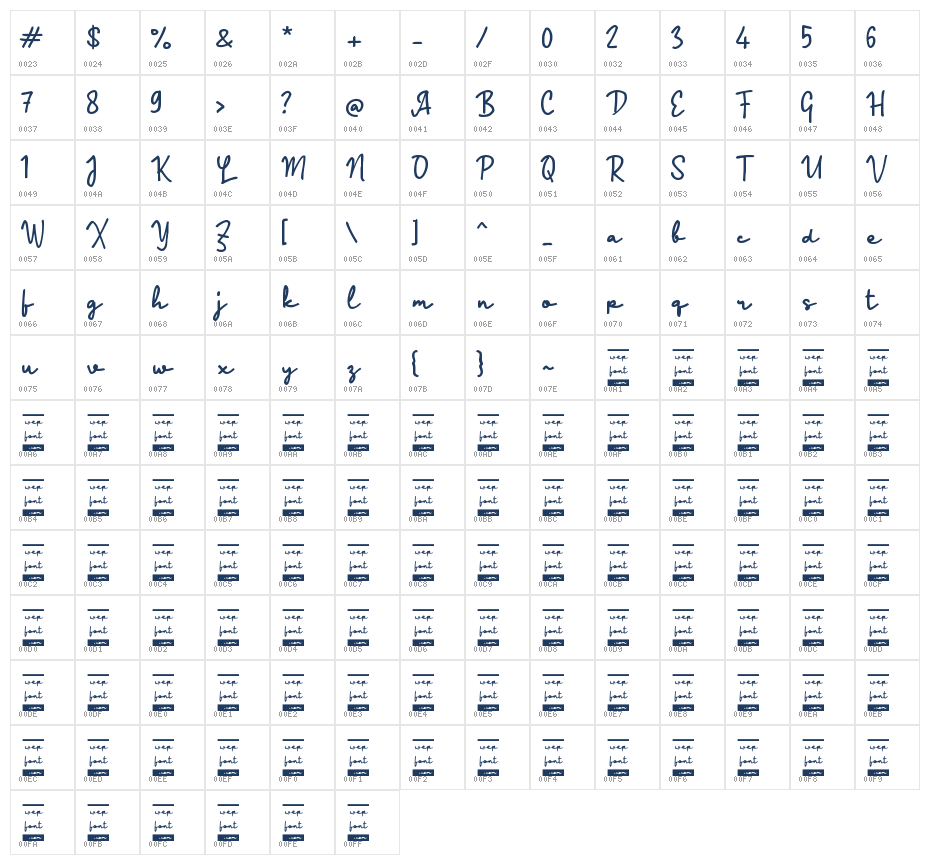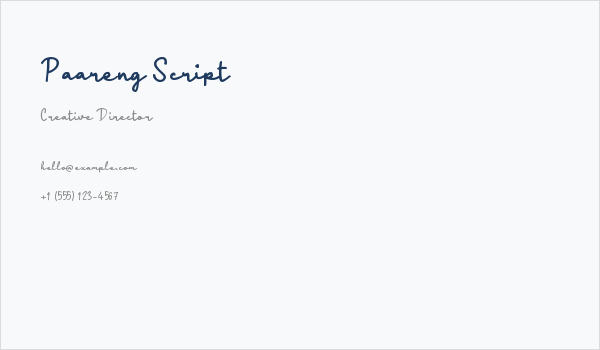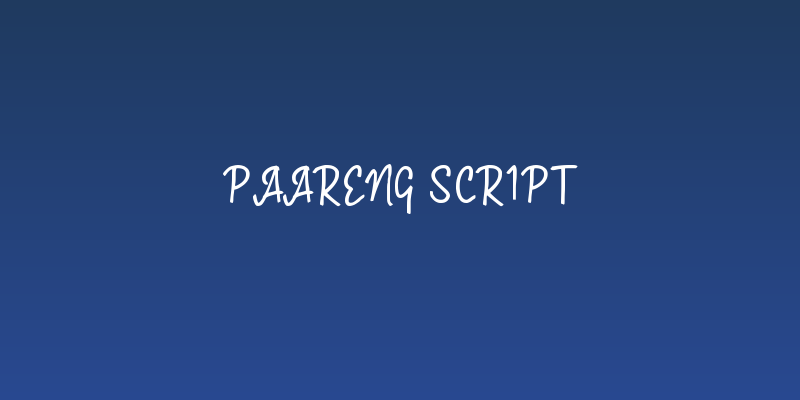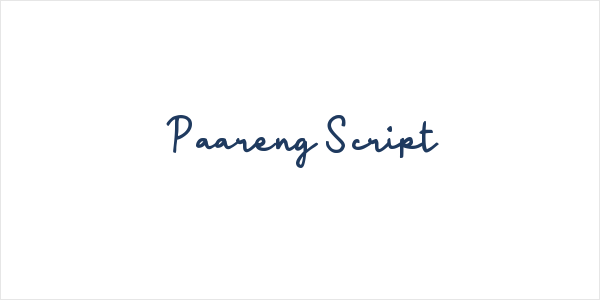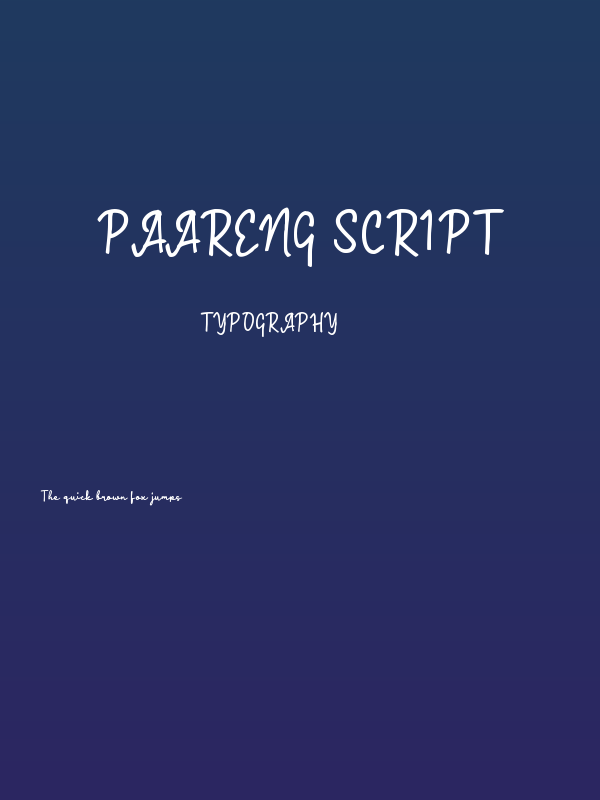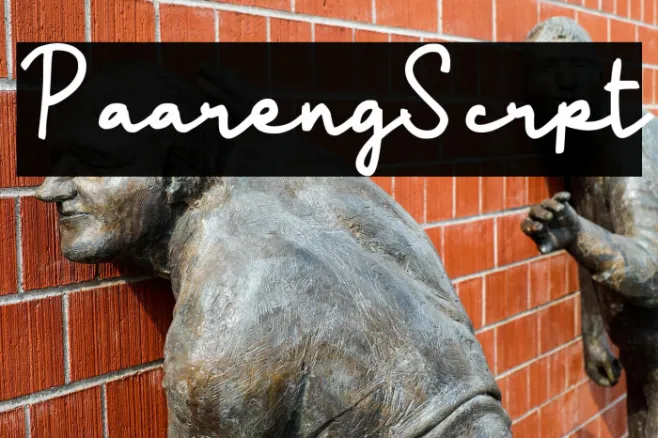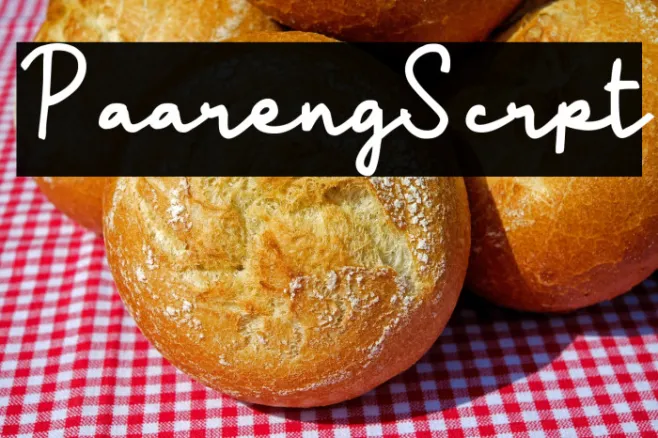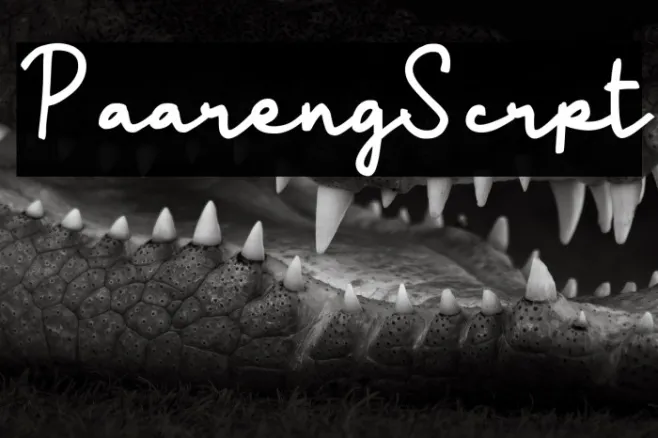
Paareng Script Font
Paareng Script Description
A casual, handwritten script font with a playful and informal style, featuring smooth curves and a slightly irregular stroke width.
| Overall Style | Casual, Playful, Handwritten |
| Use Case | Invitations, Greeting Cards, Personal Branding, Logos |